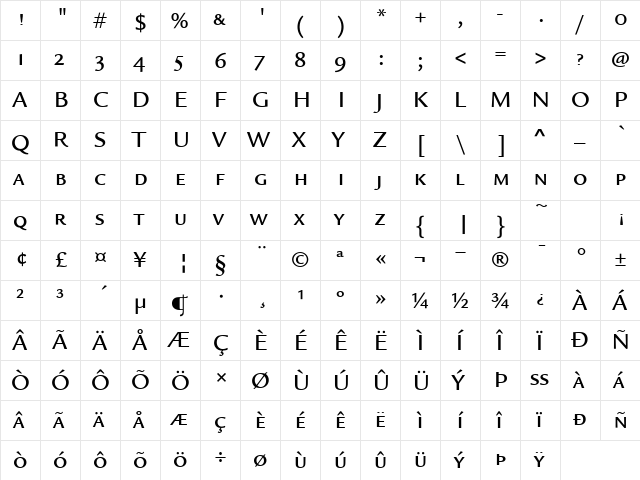
LegacySansITCSC-Medium Medium Font Preview
LegacySansITCSC-Medium Medium
Design Context for LegacySansITCSC-Medium Typeface
LegacySansITCSC-Medium offers clean, dependable letterforms without strong stylistic allegiance, making it a practical choice for designers who need flexibility.